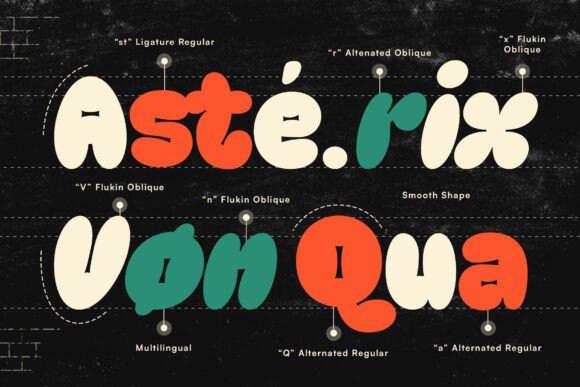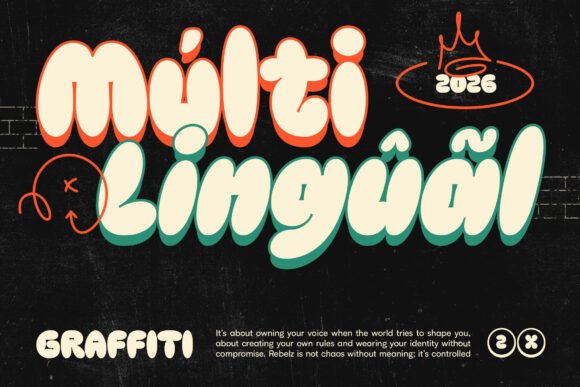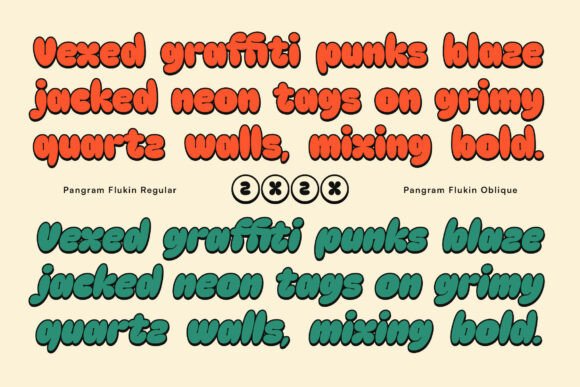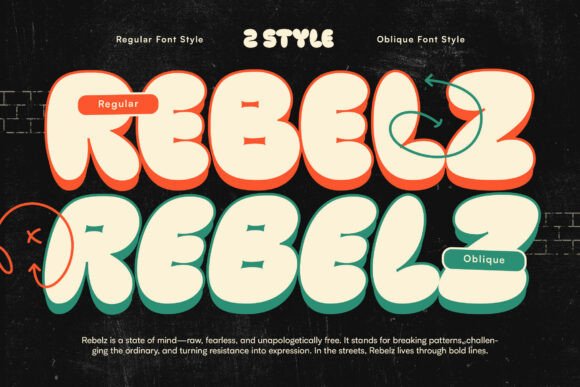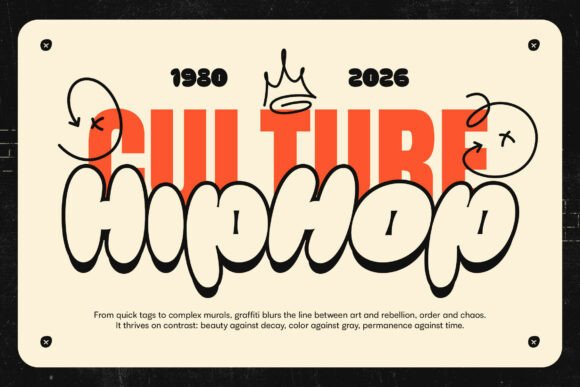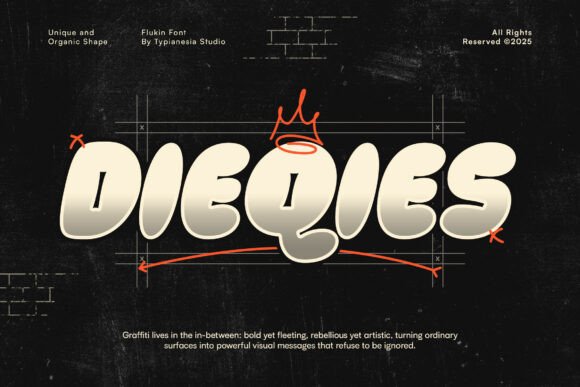
Introducing Flukin Font: The Ultimate Playful Bold Street Urban Logo Font
Are you tired of using the same old fonts in your designs? Do you want to add a touch of playfulness and urban energy to your typography? Look no further than Flukin Font, the modern bubble balloon graffiti font that’s taking the design world by storm. In this article, we’ll dive into the world of Flukin, exploring its unique features, design inspiration, and the endless possibilities it offers for creatives.
What is Flukin Font?
Flukin Font is a modern bubble balloon graffiti font that seamlessly blends playful street energy with bold urban style. Inspired by the vibrant world of graffiti culture and cartoon aesthetics, Flukin features rounded balloon-like shapes and organic curves that create a fun, expressive, and eye-catching look. This typeface is designed to bring a lively, friendly, and visually impactful presence to your designs, making it perfect for a wide range of applications.
Design Inspiration
Flukin Font draws inspiration from the dynamic and colorful world of graffiti culture, where street art meets urban style. The font’s design is influenced by the playful and carefree nature of cartoon aesthetics, resulting in a unique and captivating typeface that’s sure to grab attention. With its rounded shapes and organic curves, Flukin embodies the spirit of contemporary street design, while also paying homage to the nostalgia of the Y2K era.
Key Features of Flukin Font
- Playful and Bold: Flukin Font features a bold and playful design that’s perfect for making a statement.
- Urban Energy: The font’s urban energy and street style make it ideal for designs that require a lively and edgy vibe.
- Bubble Balloon Shapes: Flukin’s unique bubble balloon shapes add a touch of whimsy and fun to your typography.
- Organic Curves: The font’s organic curves create a smooth and fluid look that’s perfect for a wide range of applications.
- Y2K Vibe: Flukin Font combines contemporary street design with a nostalgic Y2K vibe, making it perfect for designers who want to create retro-inspired designs.
Use Cases for Flukin Font
Flukin Font is an incredibly versatile typeface that can be used in a wide range of design applications, including:
- Logo Design: Flukin Font is perfect for creating bold and eye-catching logos that require a playful and urban vibe.
- Streetwear Graphics: The font’s street style and urban energy make it ideal for streetwear graphics, such as t-shirt designs and branding.
- Music Artwork: Flukin Font is perfect for music artwork, such as album covers and posters, where a bold and playful typography is required.
- Posters and Packaging: The font’s unique design makes it perfect for posters, packaging, and branding, where a visually impactful presence is required.
- Cafés and Urban-Themed Visuals: Flukin Font is also perfect for cafés, urban-themed visuals, and any project that requires a lively and friendly typography.
Why Choose Flukin Font?
So, why choose Flukin Font over other typefaces? Here are just a few reasons:
- Unique Design: Flukin Font features a unique and captivating design that’s sure to grab attention.
- Playful and Urban: The font’s playful and urban vibe makes it perfect for designers who want to add a touch of street style to their typography.
- Versatile: Flukin Font is incredibly versatile and can be used in a wide range of design applications.